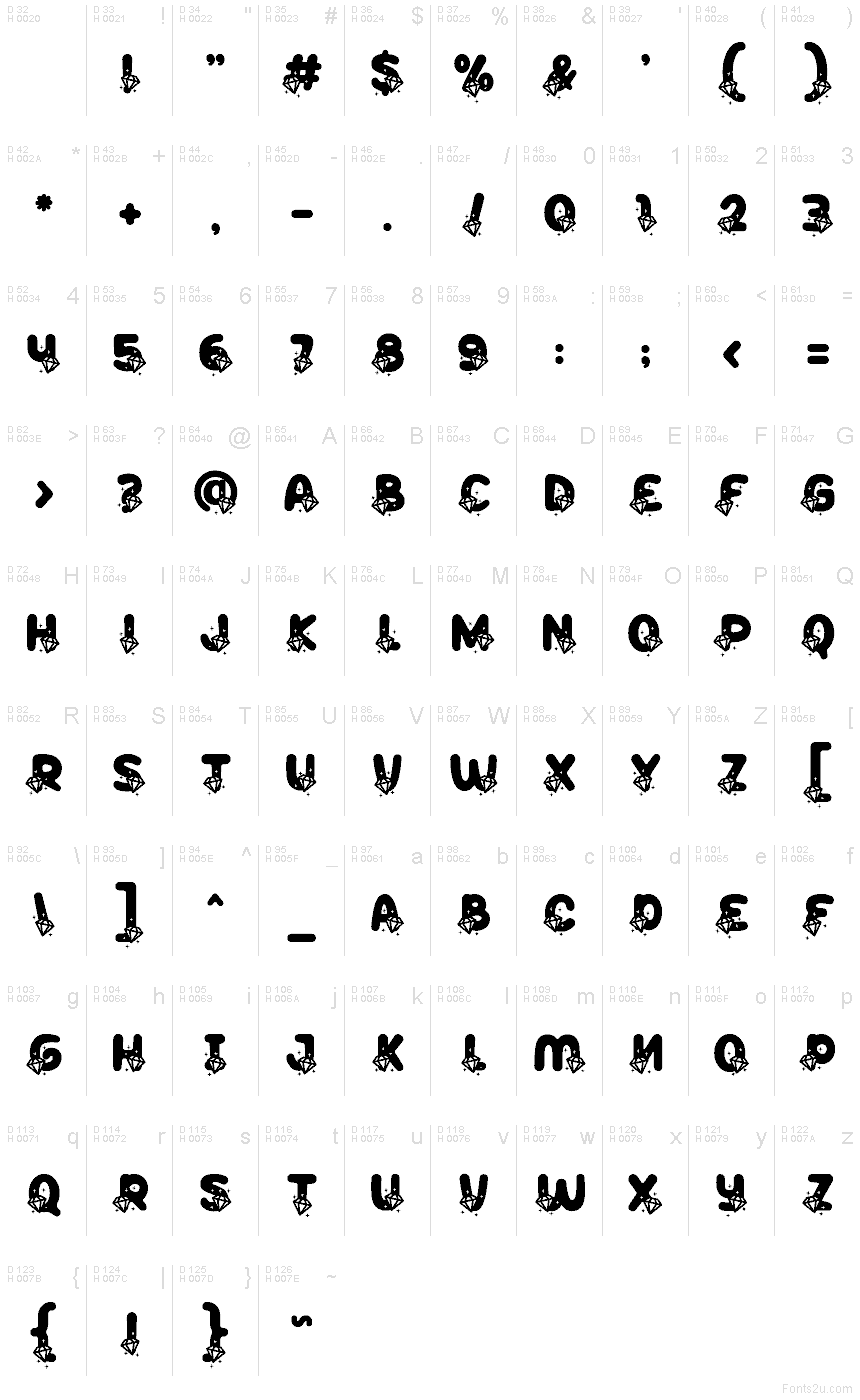
Peppy Pegasus Diamond
Peppy Pegasus Diamond font by PutraCetol Studio is a decorative, bold display font with retro and whimsical attributes. The ornamental typeface has beautiful shapes, decorative details, angular lines, and curved edges. The fun font aims for a vintage overall appearance while making a dominating impression.
Common uses include book covers, packaging designs, movie title scenes, posters, logos and branding projects. Design blog headers or social media graphics with the combination of capital and small caps letterforms. Prepare magazine covers or online website lettering using this free display font as well.